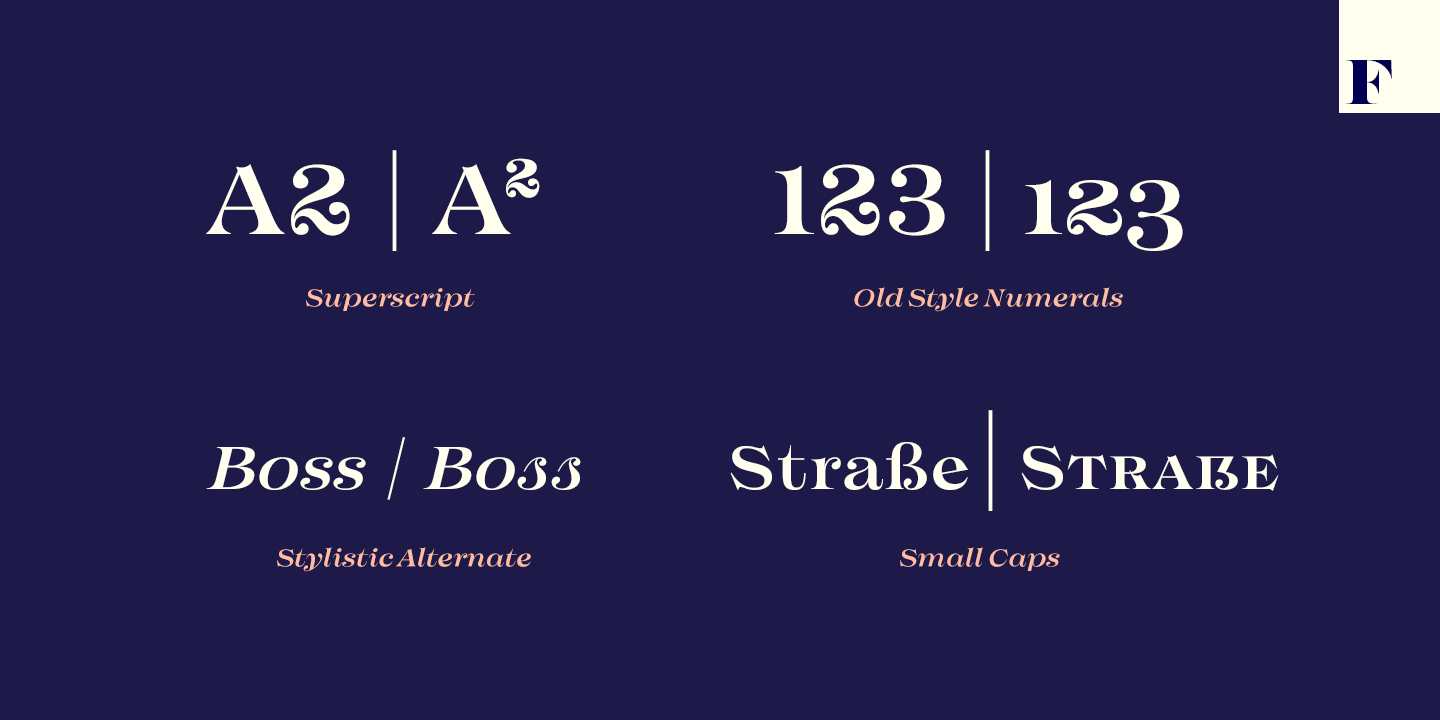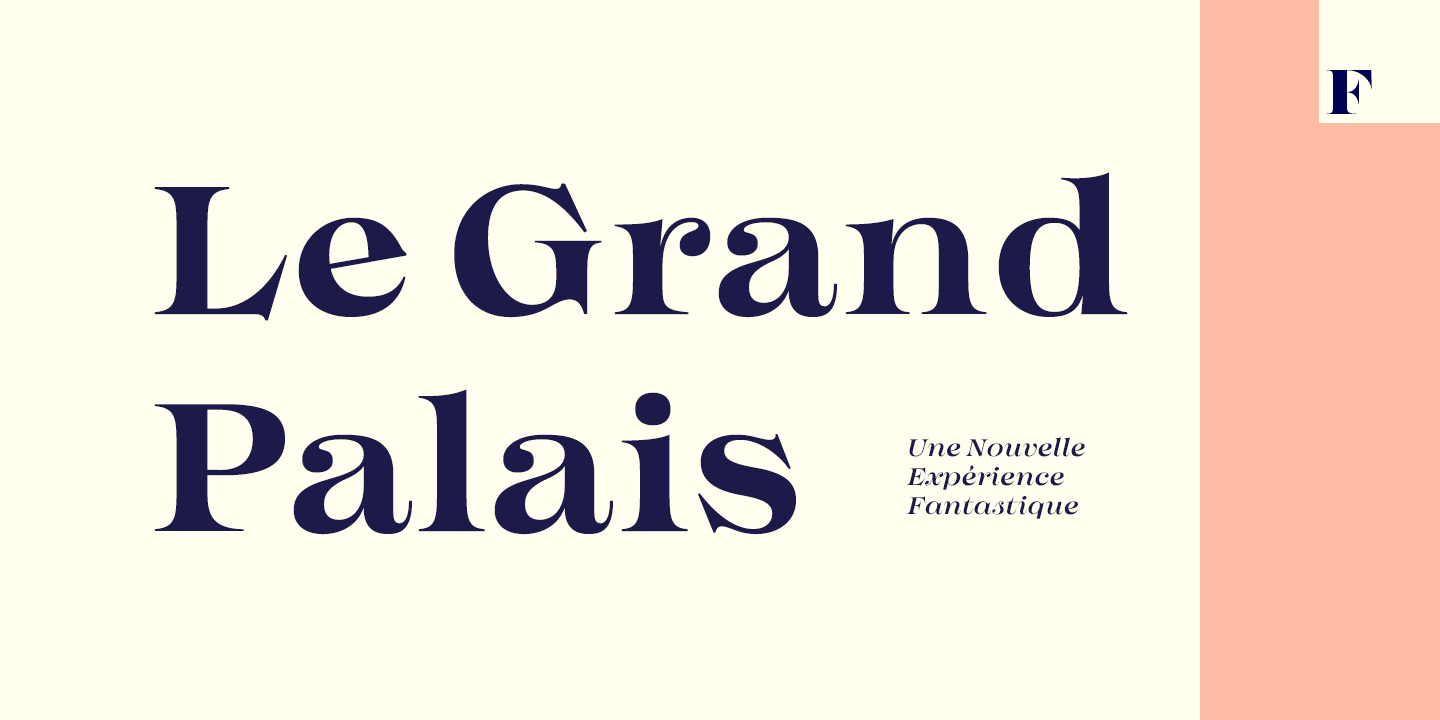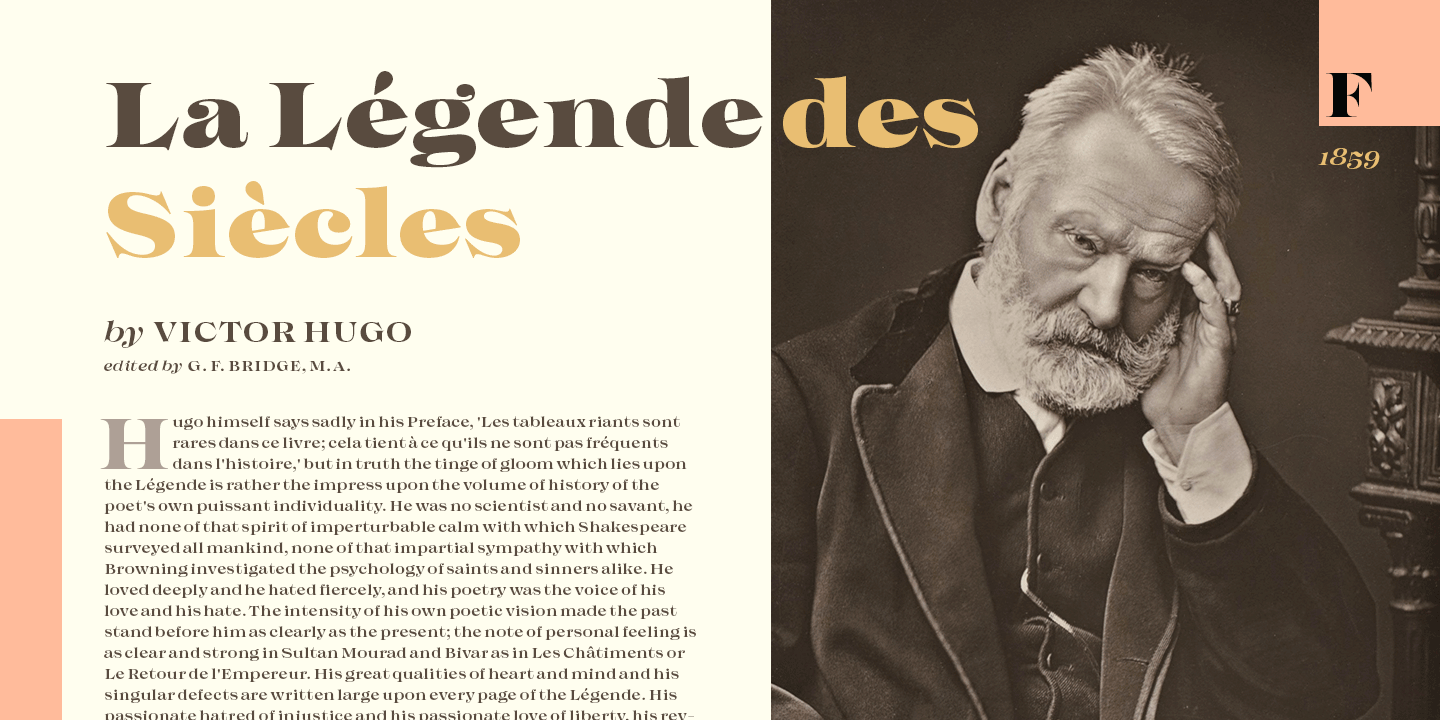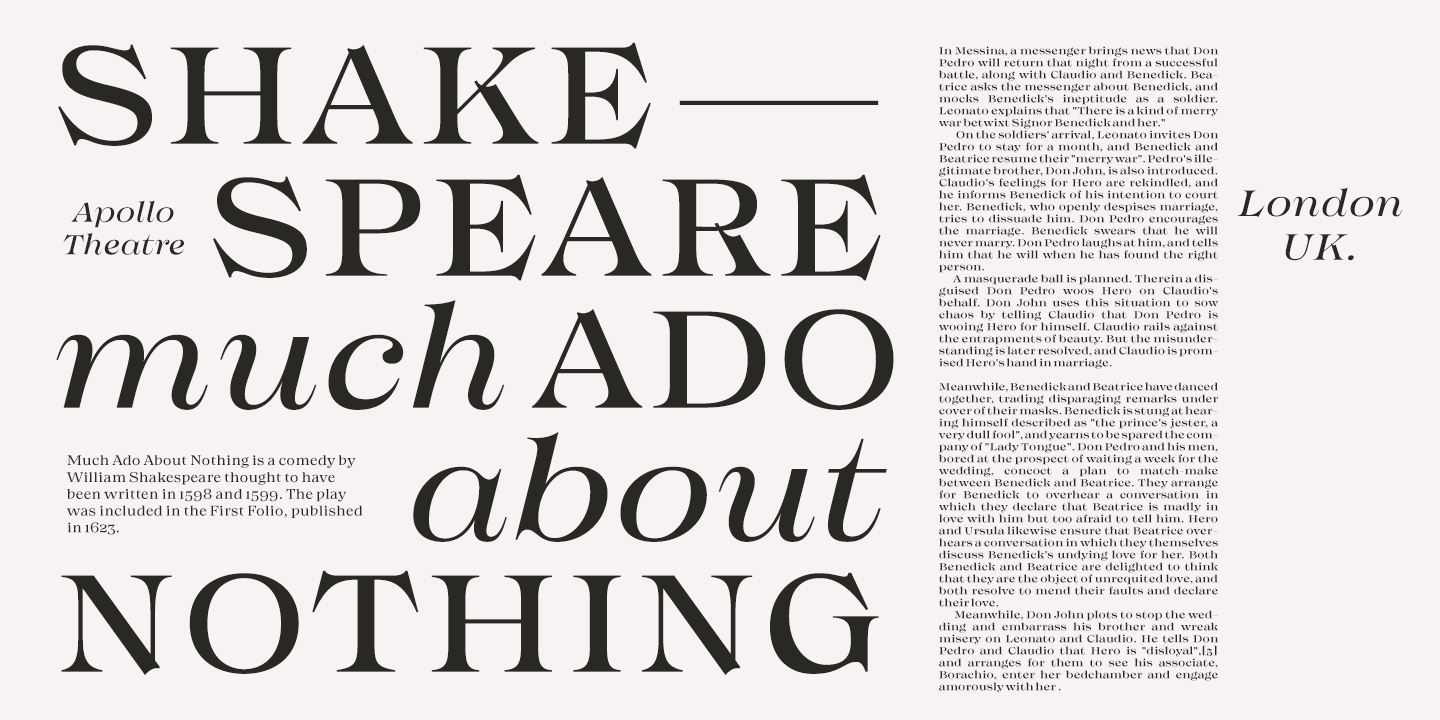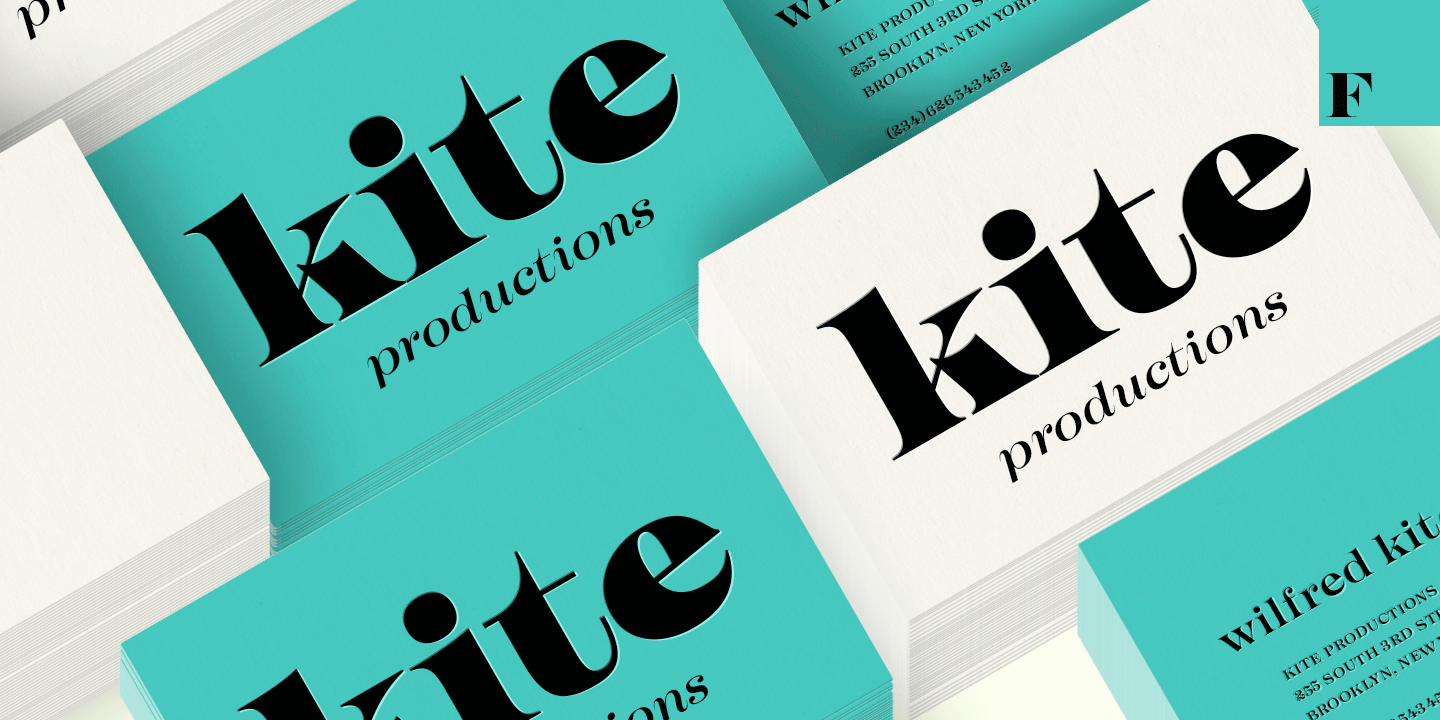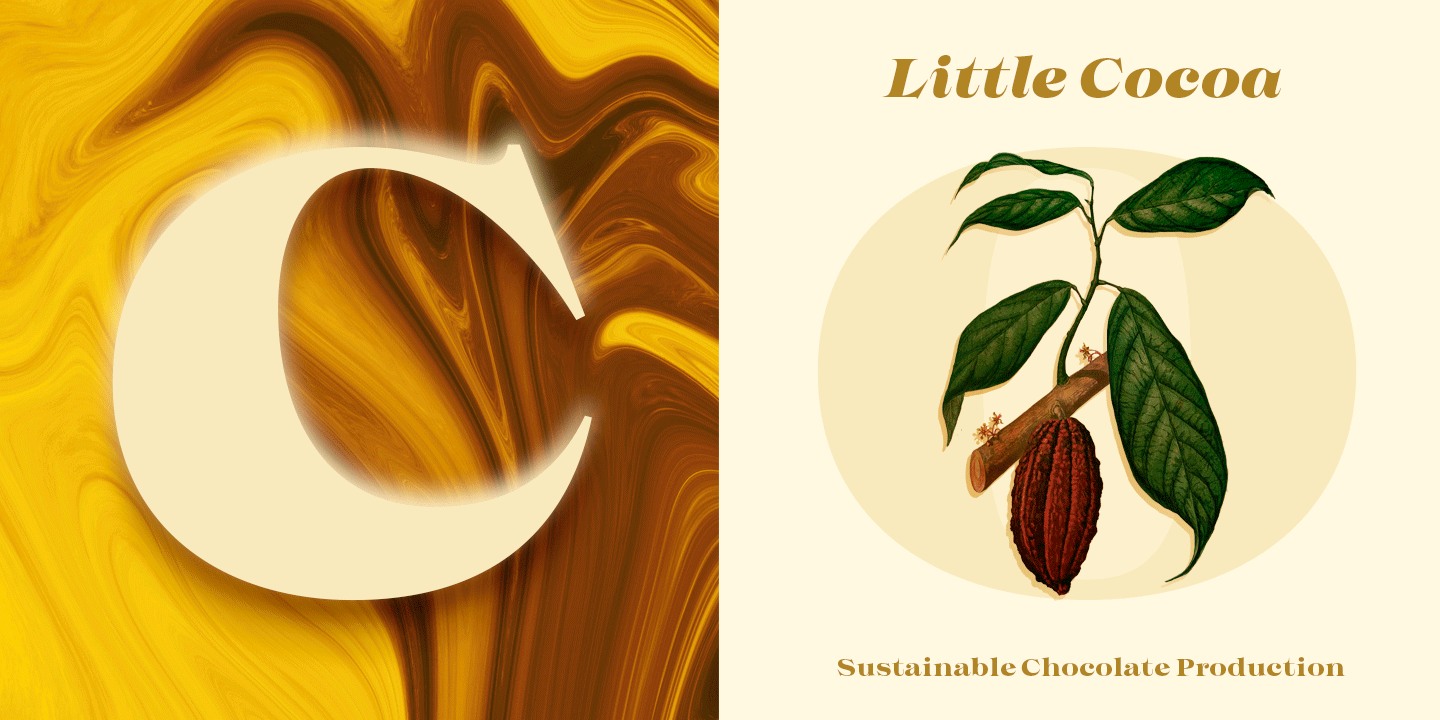
About Imagist
The mystic sadness of the sight of a far town seen in the night. Like the poetry movement of the early 20th century, from which the font takes its name, Imagist relies on the power of concrete images and brings an organic vibration to the words it forms.…